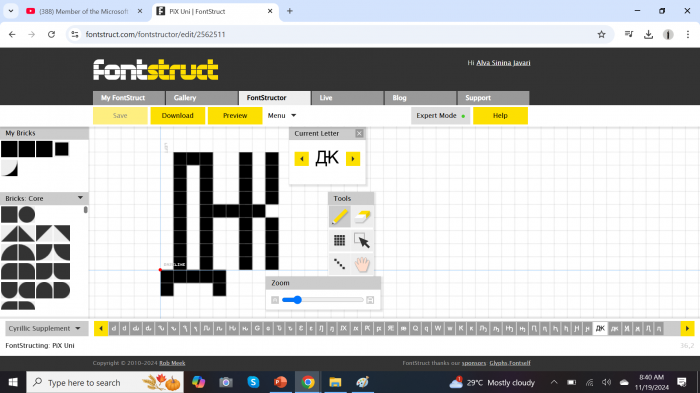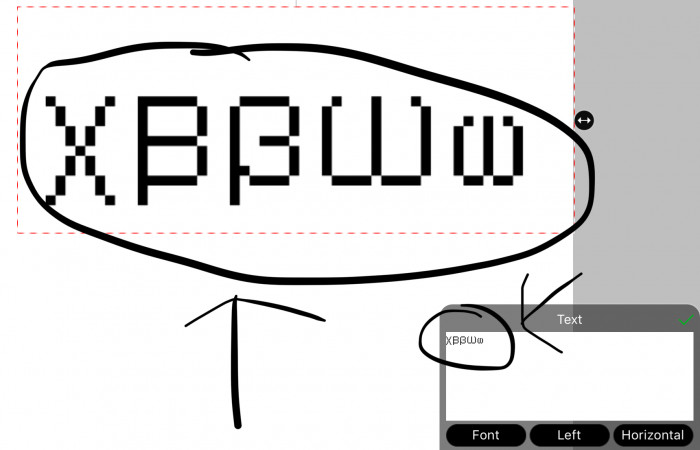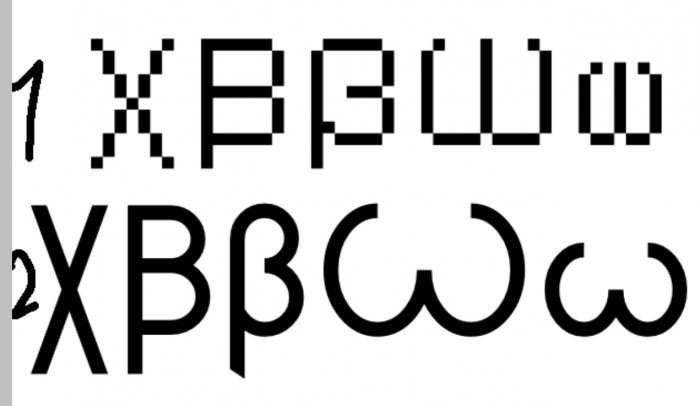
• Official PiX Uni Font
Version is 5.6
Versions Acceptable
6.0 - More arrows, symbols, and complete Greek Extended
Versions not Acceptable
6.5 - Completes the whole Arabic block and redesigns old glyphs
Versions reserved
5.9 - Adds Lisu Supplement, Osmanya, Gothic, Shavian, Deseret, Pau Cin Hau, Mathematical Alphabet, Emojis, Lycian, Lydian, Modi, Ancient Symbols, Arabic Ext-C, Latin Ext-F, Latin Ext-G, and Cyrillic Ext-D, Completes Miscellanous Symbols, and removes CJK Compability because it is too old
Versions in the Future
6.5 - Completes the Arabic block, Arabic Supplement block, and Arabic Ext-A block (Since unicode 8)
Milestones
Reached 4000 glyphs on 11.14.2024
Our Goals (will be removed soon)
Is to become a Unicode font (5000 glyphs)
Is to be a Staff Pick
A simple recreation font from my calculator.
Clone if you want to add more characters (base is 7x9, lowercase forms are 7x7, and combining marks is -7x9).
My glyph is so tasty (uni052A)
ꞳꞴꞵꞶꞷ look fine to me
Which one do you like
1 because i like this font,i like PIXELS